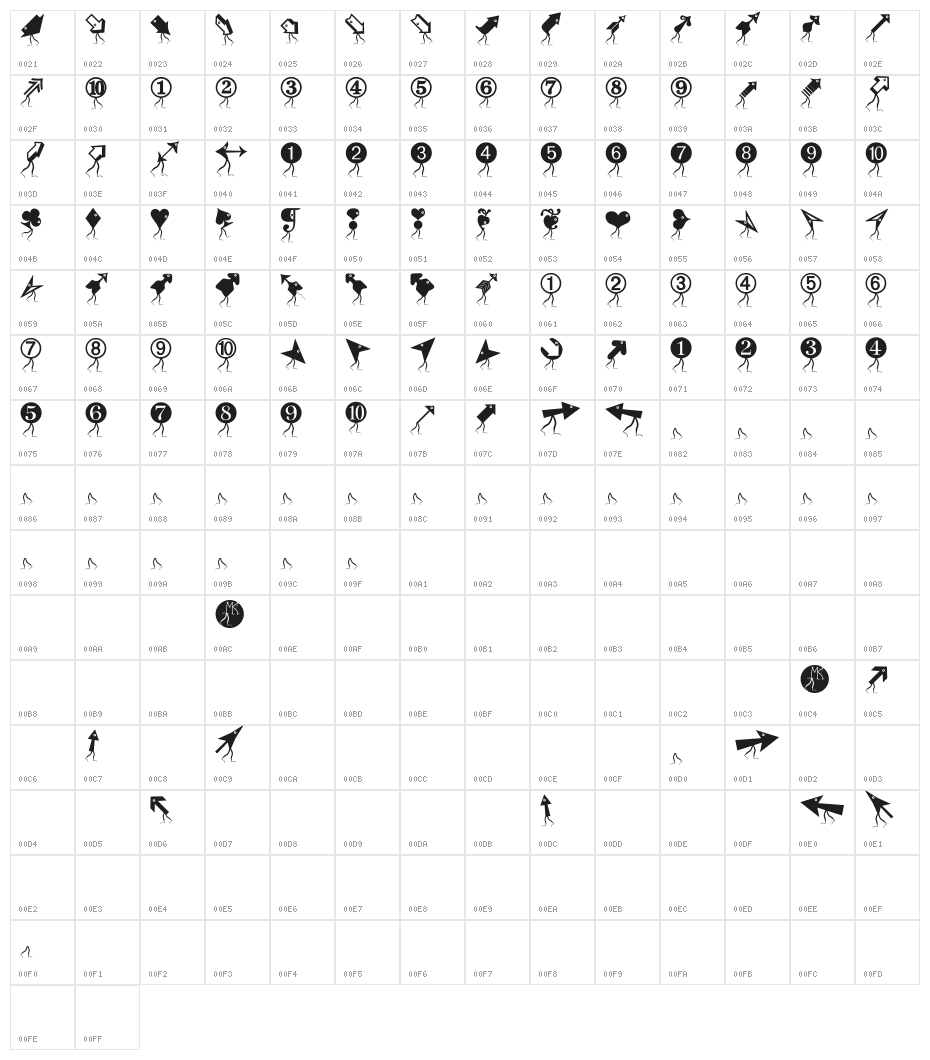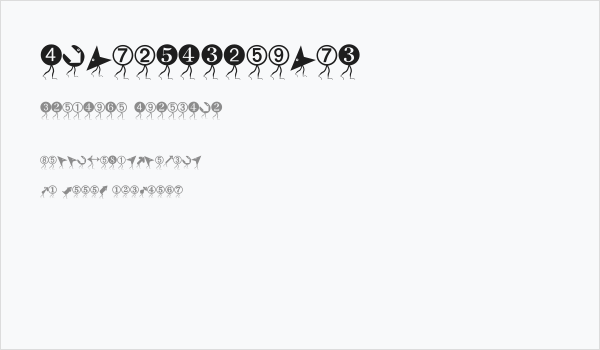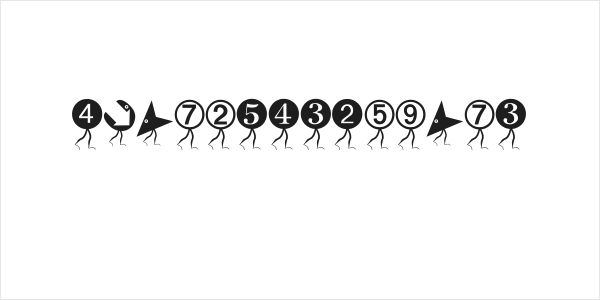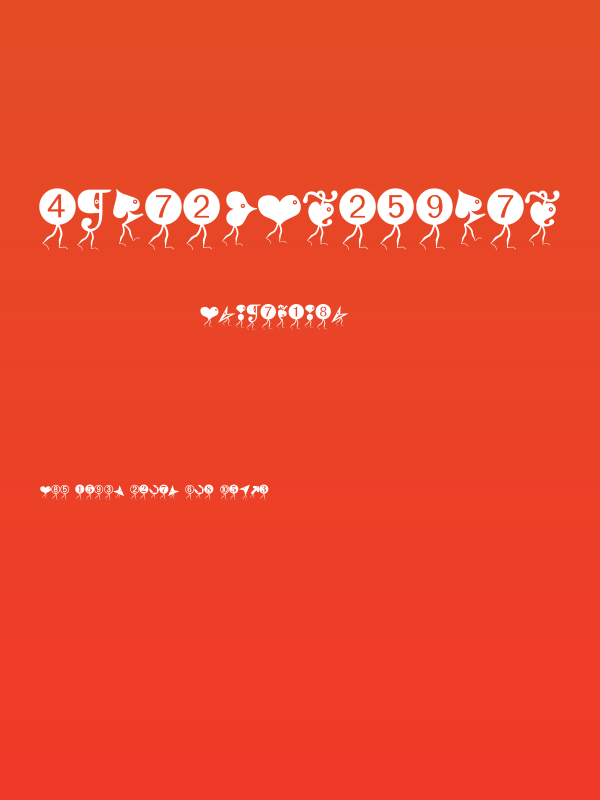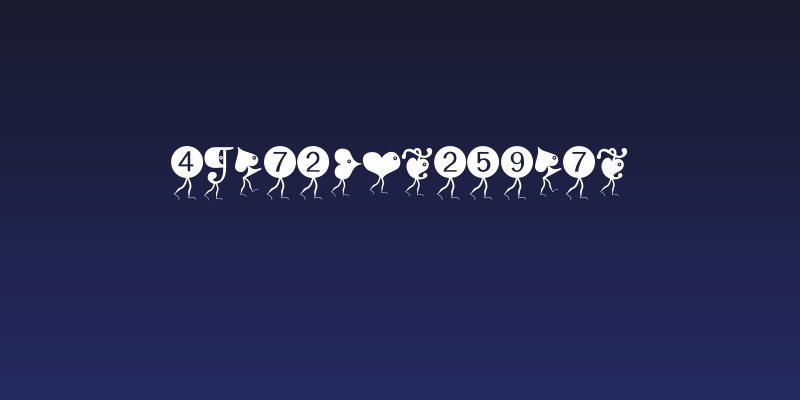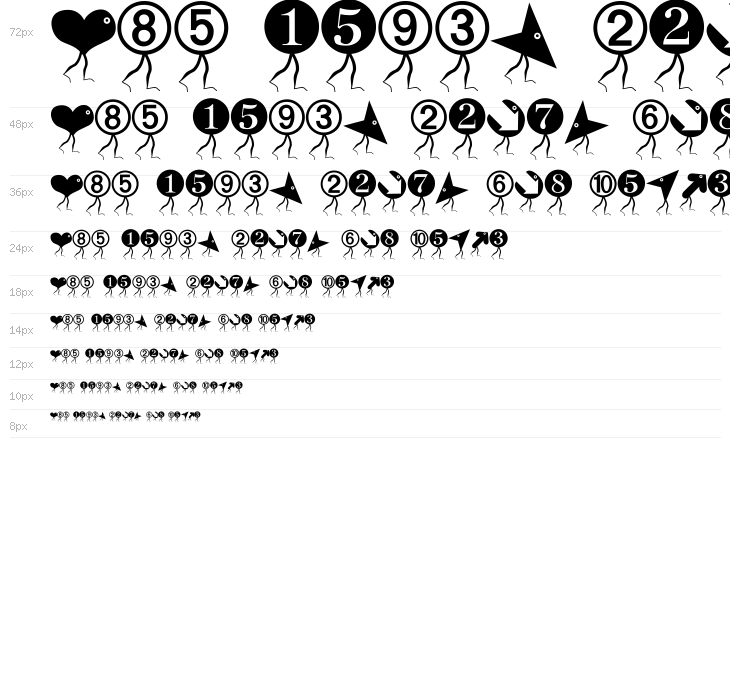
DongbutsBeings Font
DongbutsBeings Description
This font features a whimsical and playful design, incorporating elements of anthropomorphic figures with numbers and symbols. Each character is creatively integrated with a small figure, giving the impression of movement and personality. The numbers are bold and enclosed in circular shapes, while the symbols take on unique forms, such as hearts and spades, each with tiny legs. The overall design is imaginative and artistic, making it stand out as a decorative choice. The font's distinctive style is ideal for projects that require a fun and engaging visual element.
Proposed ProjectsIdeal for children's books, playful branding, creative posters, and unique invitations.